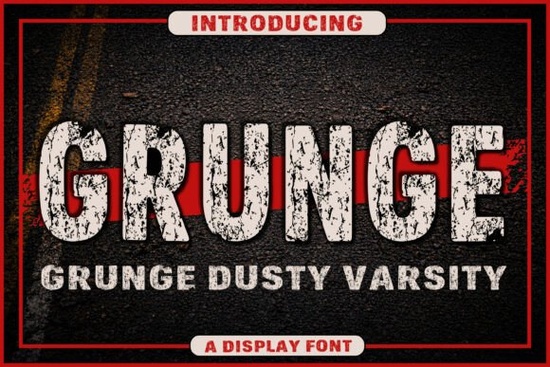
Designers, crafters, and small business owners looking for a unique way to add character to their projects might find the Grunge Dusty Varsity Font to be a valuable addition to their toolkit. This distressed display font brings a rugged, vintage athletic feel that works well across a variety of creative applications. Whether you're working on apparel, branding, or event promotions, the Grunge Dusty Varsity Font offers a bold, worn-in look that stands out.
The Grunge Dusty Varsity Font is ideal for anyone who wants to incorporate a sense of history and authenticity into their work. Its design mimics the appearance of aged, weathered lettering, making it perfect for projects that require a more casual, edgy aesthetic. The font’s texture and style make it particularly suited for sports-related designs, but its versatility extends beyond that. It can also be used in logos, posters, and even home decor, giving any project a distinctive, handcrafted touch.
What Makes Grunge Dusty Varsity Unique?
Unlike many standard fonts, Grunge Dusty Varsity isn’t just about style it’s about storytelling. The font’s distressed elements suggest a long history, as if the letters have been through years of use and exposure. This makes it especially effective for brands or projects that want to convey a sense of toughness, nostalgia, or rebellion. The font’s boldness ensures it remains readable while still maintaining a strong visual impact.
One of the key features of this font is its ability to blend seamlessly with other design elements. Whether paired with a simple background or used as a focal point, Grunge Dusty Varsity adds depth and dimension to any layout. Its versatility means it can be used in both digital and print formats, making it a practical choice for a wide range of users.
Best Uses for Grunge Dusty Varsity
This font is particularly well-suited for sportswear and apparel. Think of vintage team jerseys, university hoodies, or streetwear that needs a rugged edge. The font’s appearance gives these items a sense of authenticity that can’t be achieved with more modern typefaces. For branding purposes, it’s great for gyms, breweries, or outdoor brands that want to communicate a strong, no-nonsense identity.
Event promotion is another area where Grunge Dusty Varsity shines. Rock concert posters, sports event flyers, and social media graphics can all benefit from the font’s bold, worn-in look. It helps create a visual language that speaks directly to audiences who appreciate a bit of grit and authenticity. For crafters, the font is perfect for masculine birthday cards, vinyl decals, or home decor signs that need a little extra character.
How to Use Grunge Dusty Varsity Effectively
To get the most out of Grunge Dusty Varsity, consider pairing it with simpler fonts or clean backgrounds to avoid overwhelming the design. Using it as a headline or title can help draw attention without losing readability. Experimenting with color and texture can also enhance the font’s natural distressed look, adding more depth to your work.
If you’re new to using distressed fonts, start by applying them to smaller elements like captions or subheadings. This allows you to test how the font interacts with other design components before using it more prominently. Over time, you’ll develop a better sense of how to balance its bold presence with other visual elements.
Before finalizing your design, make sure to test the Grunge Dusty Varsity Font in different sizes and contexts. This will help you ensure that it looks good in both digital and print formats. Also, consider the message you want to convey does the font align with the tone and style of your project?
By understanding how to use and pair this font effectively, you can unlock its full potential and create designs that stand out. Whether you're a designer, crafter, or small business owner, the Grunge Dusty Varsity Font is a powerful tool that can elevate your work with its unique, rugged style.